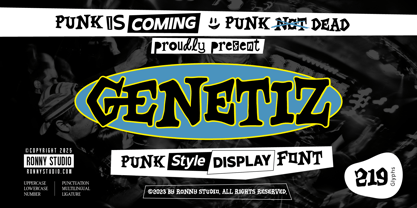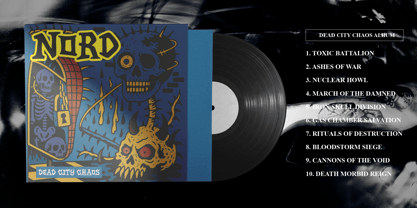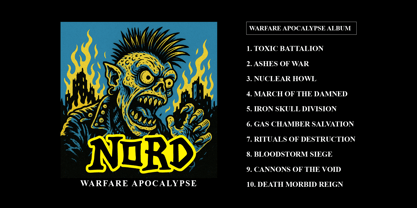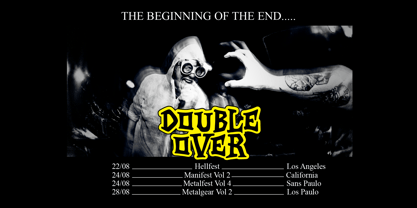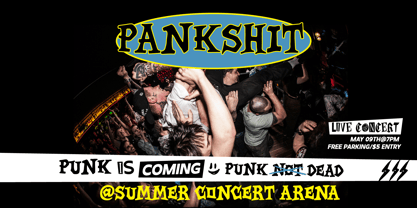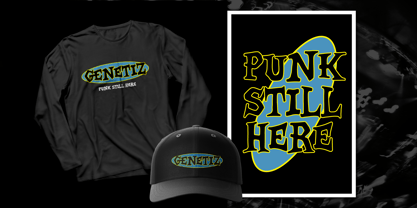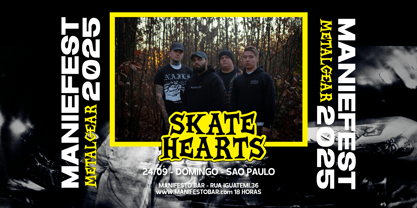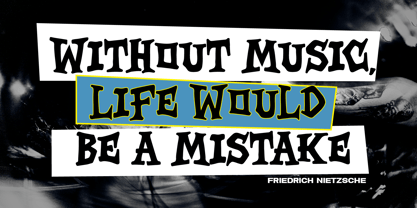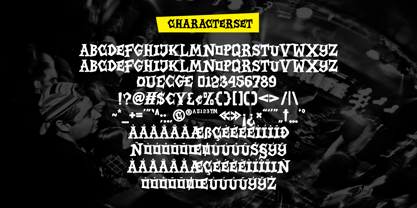
Genetiz
Unleash the raw spirit of underground rebellion with GENETIZ, a punk-inspired display font packed with wild energy, expressive shapes, and the true attitude of the 90’s punk scene. Built with chaotic strokes, gritty textures, and raw visual power, GENETIZ brings a bold identity to any design that refuses to look “ordinary.” ⚡🔥 Inspired by gig posters, DIY cassette covers, band stickers, and early 2000s street-punk visuals, GENETIZ is the perfect choice for creating noisy, bold, and anti-mainstream artwork. Whether you’re designing merch, streetwear graphics, or edgy visual projects, this font will instantly elevate your work with unmistakable punk attitude. 🎸🖤 ✨ Font Features 🔥 True Punk Style Display Look 🖍 Chaotic, textured & grungy letterforms 🔤 Uppercase & Lowercase 🔢 Numbers, Symbols & Punctuation ✂️ Ligatures & Alternates for visual variation 🌍 Multilingual Support 🎯 PUA Encoded